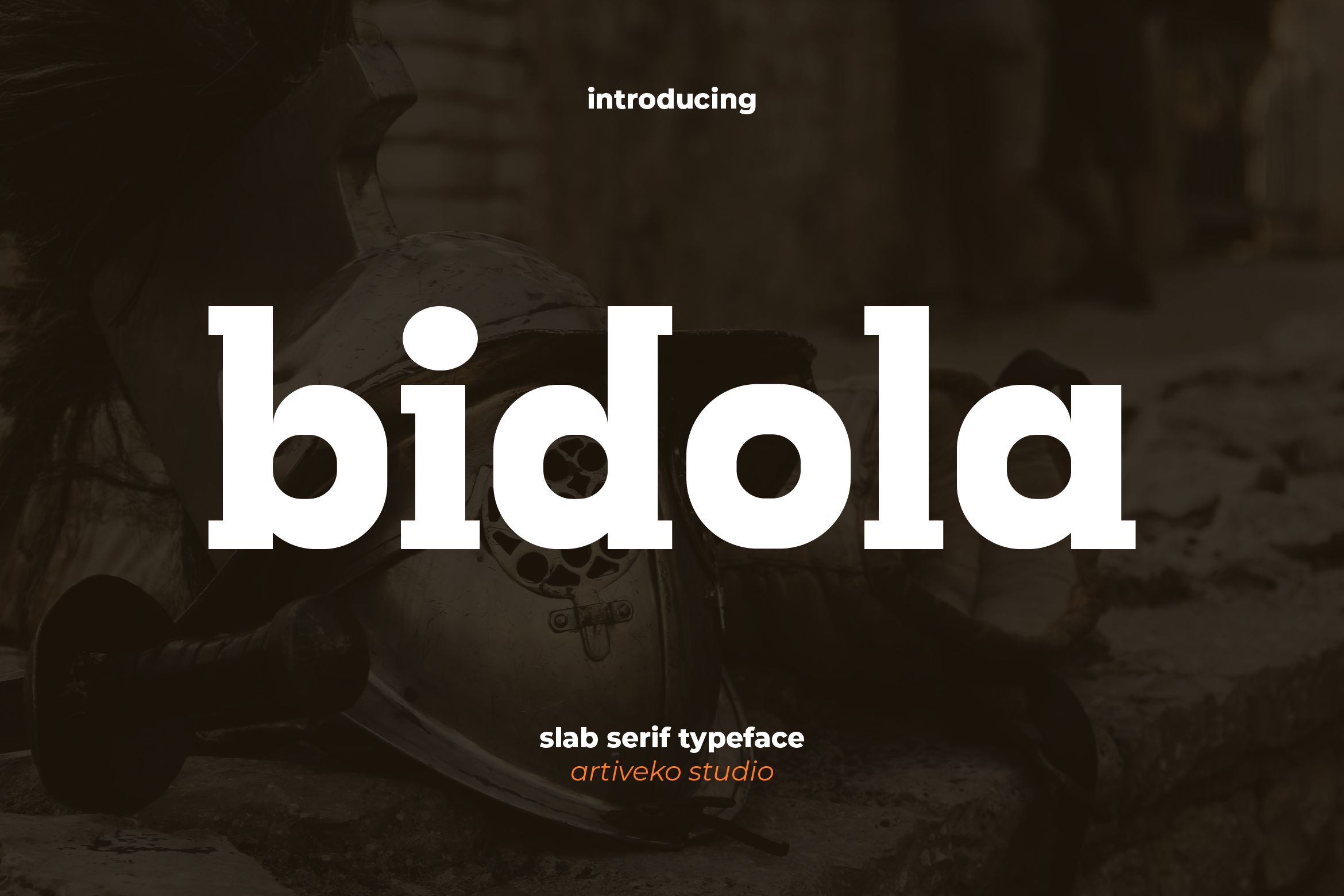
- Bidola Bold Serif Font
Bidola is a strong and versatile slab serif font that combines bold structure with refined details. Its thick serifs and clean geometry create a confident, timeless look, making it perfect for branding, editorial design, posters, packaging, and headlines that demand attention.
The design of Bidola strikes a balance between elegance and strength, ensuring high readability across all sizes. Ideal for both print and digital projects, this font brings a classic touch with a modern twist.
Bidola includes uppercase and lowercase letters, numerals, punctuation, multilingual support, and stylish ligatures and alternates to give your designs a unique personality.
Whether you’re building a premium brand identity or crafting bold editorial titles, Bidola delivers sophistication and impact in every character.